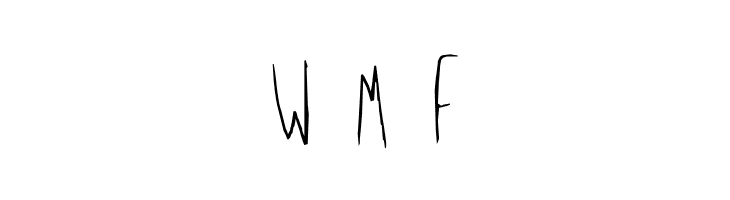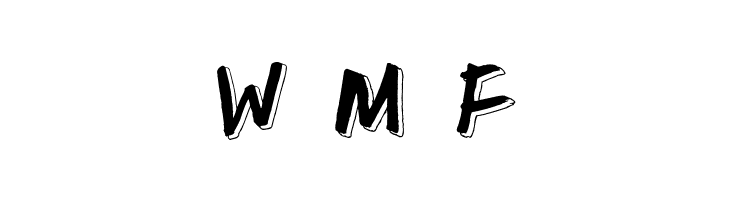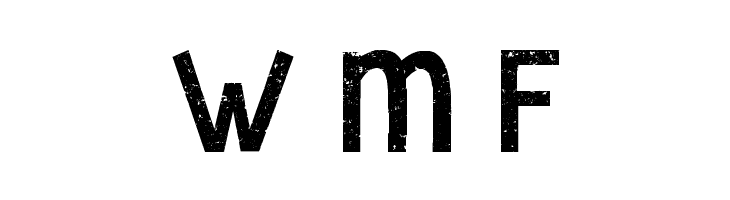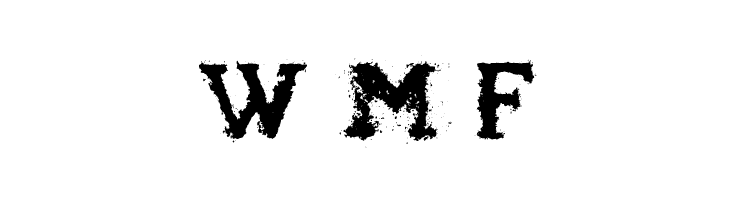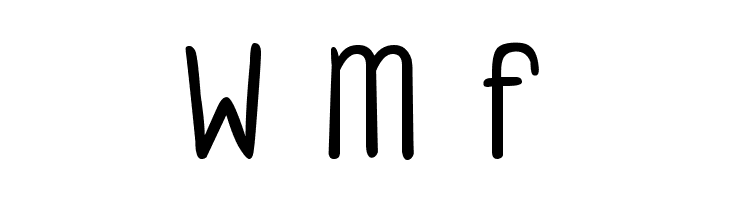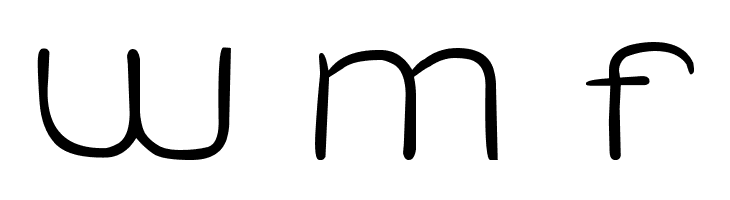
A playful and expressive font featuring emoticon-like characters with exaggerated facial expressions.
A bold, italicized font with a unique zigzag pattern, exuding energy and movement.
A bold, zigzag-patterned font with a dynamic and energetic style.
A dynamic, angular font with a modern calligraphic style.
A playful, handwritten-style font with bold, consistent strokes.
An elegant script font with flowing, cursive characters and artistic flair.
A playful, bold font with rounded serifs and thick strokes.
A bold, playful handwritten font with rounded, consistent strokes.
A whimsical font with characters inside steaming coffee cups, perfect for creative designs.
A bold, dynamic script font with interconnected characters and expressive strokes.
A bold, decorative font with playful footprint accents on each letter.
A pixelated, retro-style font with a geometric, grid-like design.
A playful font with characters inside coffee cup silhouettes, perfect for coffee-themed designs.
A dynamic, brush-style font with expressive strokes and artistic flair.
A pixelated, digital-inspired font with a modern, dynamic slant.
A bold, geometric font with clean lines and uniform stroke widths, perfect for impactful statements.
A playful and dynamic handwritten font with fluid, irregular strokes.
Bold, uppercase font with a modern and impactful style.
A playful, handwritten script font with decorative elements and moderate stroke contrast.
A flowing, cursive font with elegant, interconnected strokes.
A bold, geometric font with strong, blocky characters and a modern aesthetic.
A playful, casual handwritten font with rounded, slightly irregular letterforms.
A flowing, elegant script font with high contrast and graceful swashes.
A bold, handwritten-style font with dynamic, slanted characters.
A playful font made of coffee bean-like shapes, offering a textured and unique appearance.
An elegant script font with flowing, cursive strokes and a sophisticated style.
An elegant and flowing script font with ornate, cursive letterforms.
A playful, handwritten font with smooth curves and a casual, friendly style.
A whimsical, handwritten font with tall, narrow characters and a playful tone.
A handwritten, italic font with elongated, flowing characters.
A bold, classic serif font with strong, angular serifs and a slightly condensed structure.